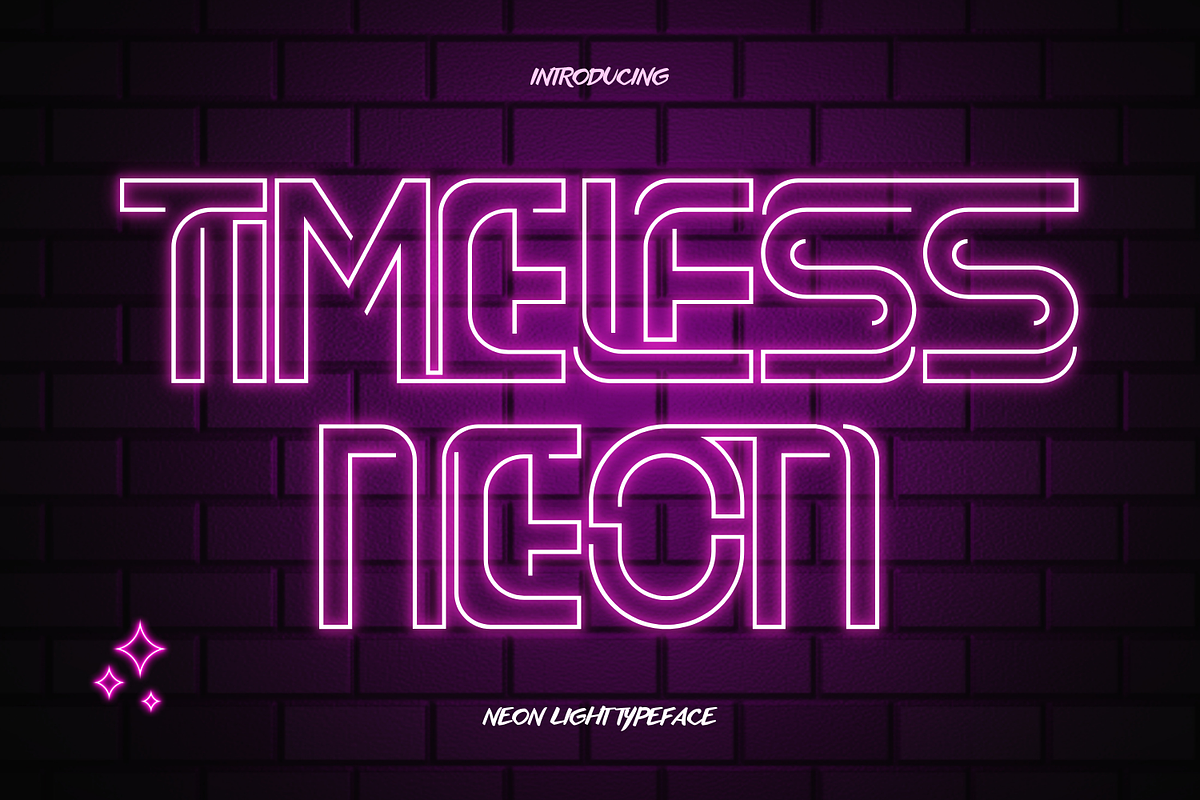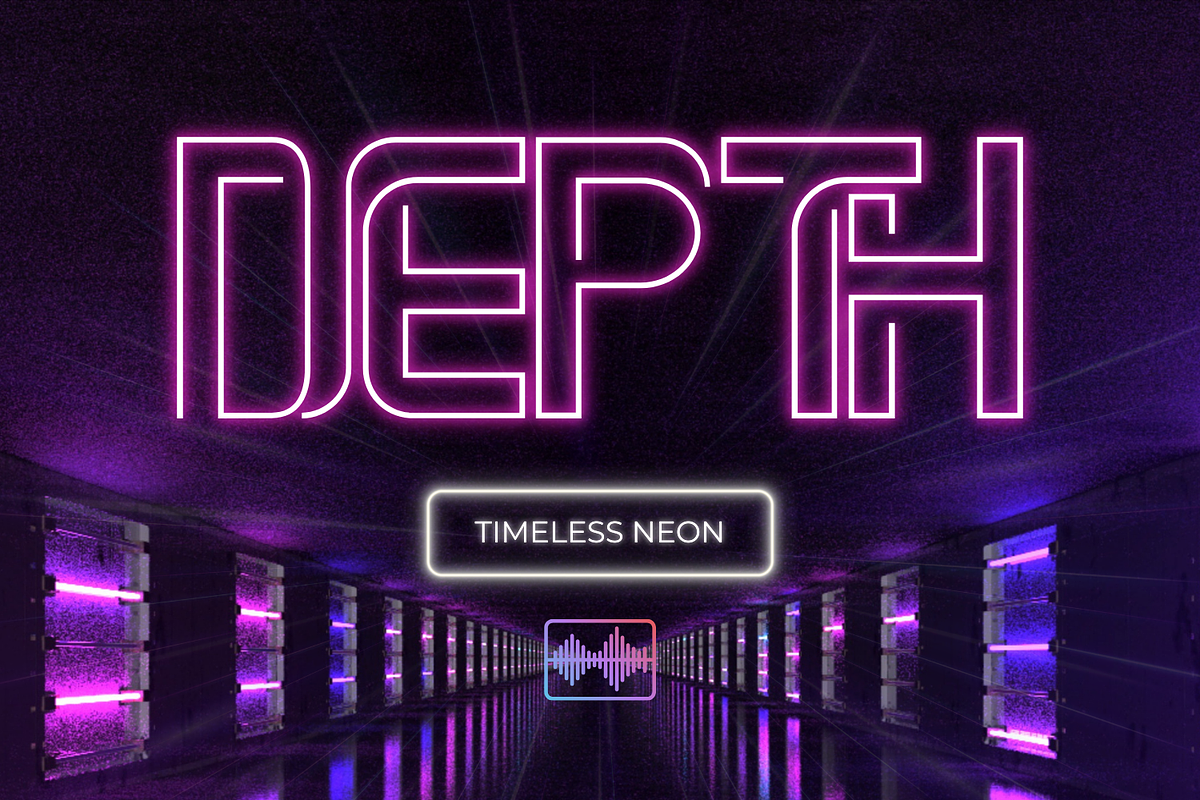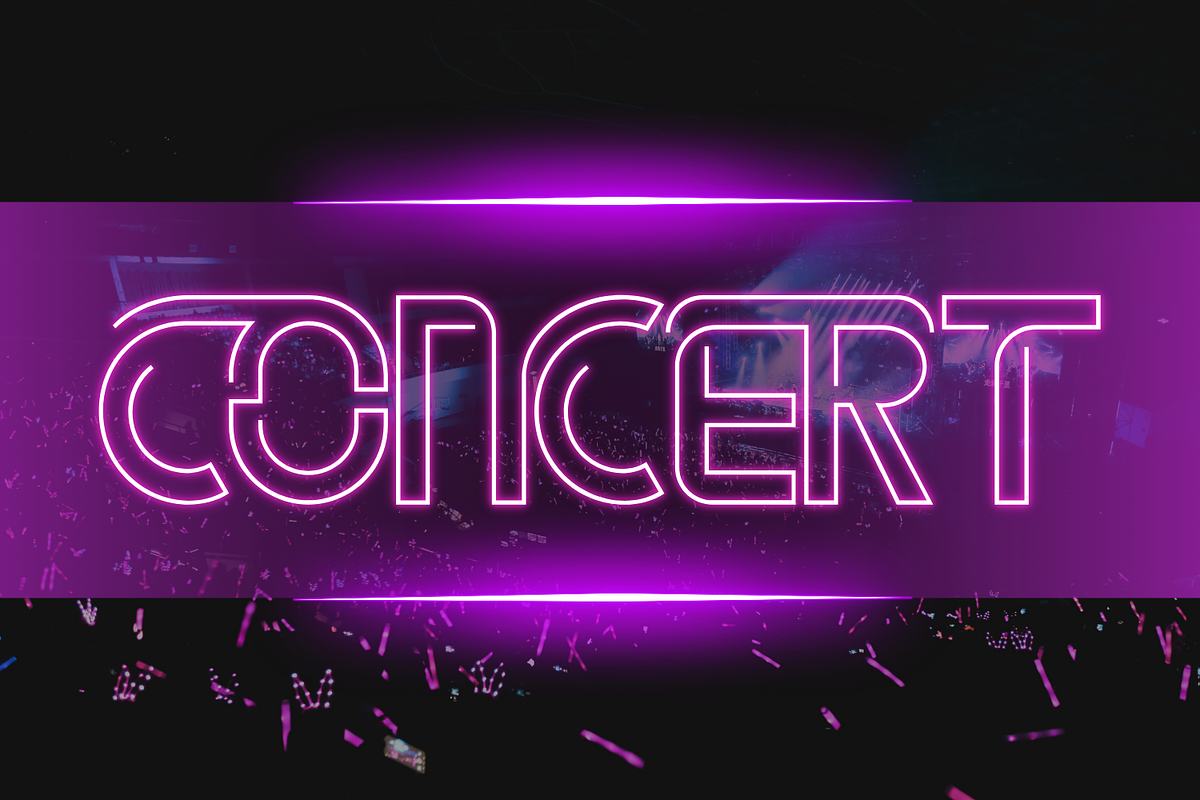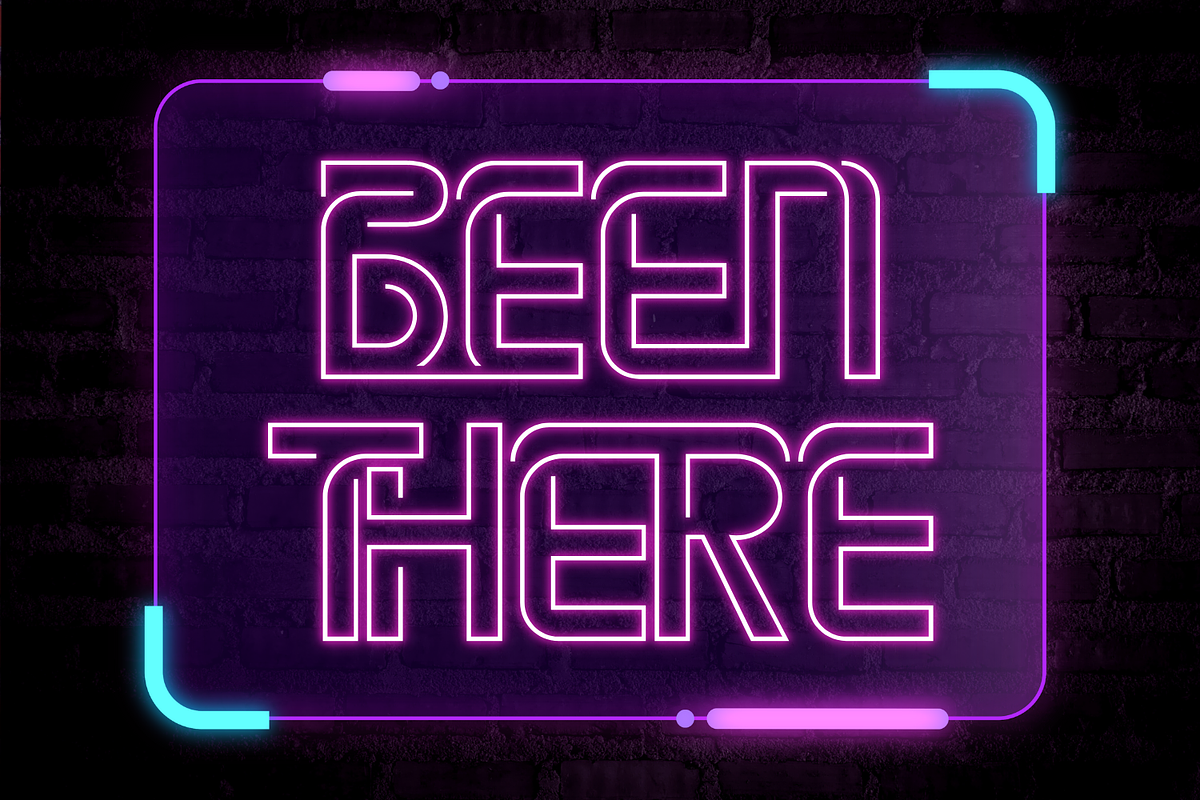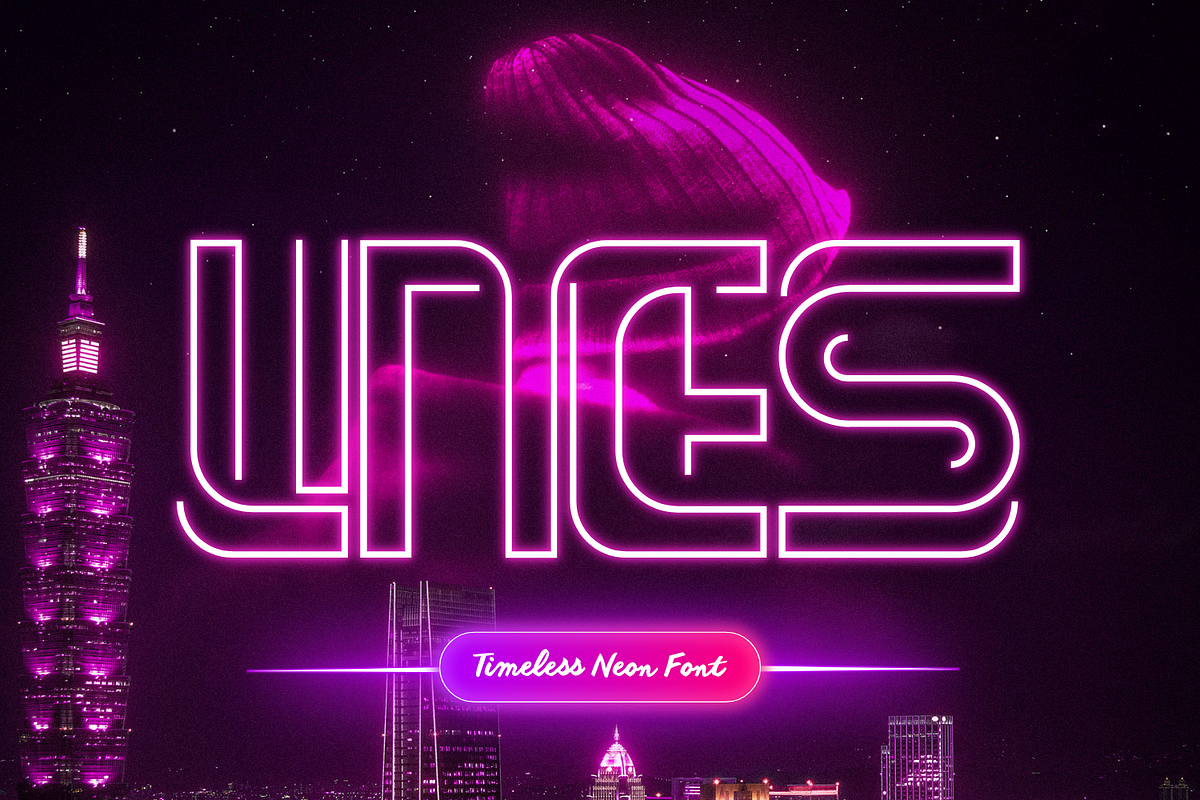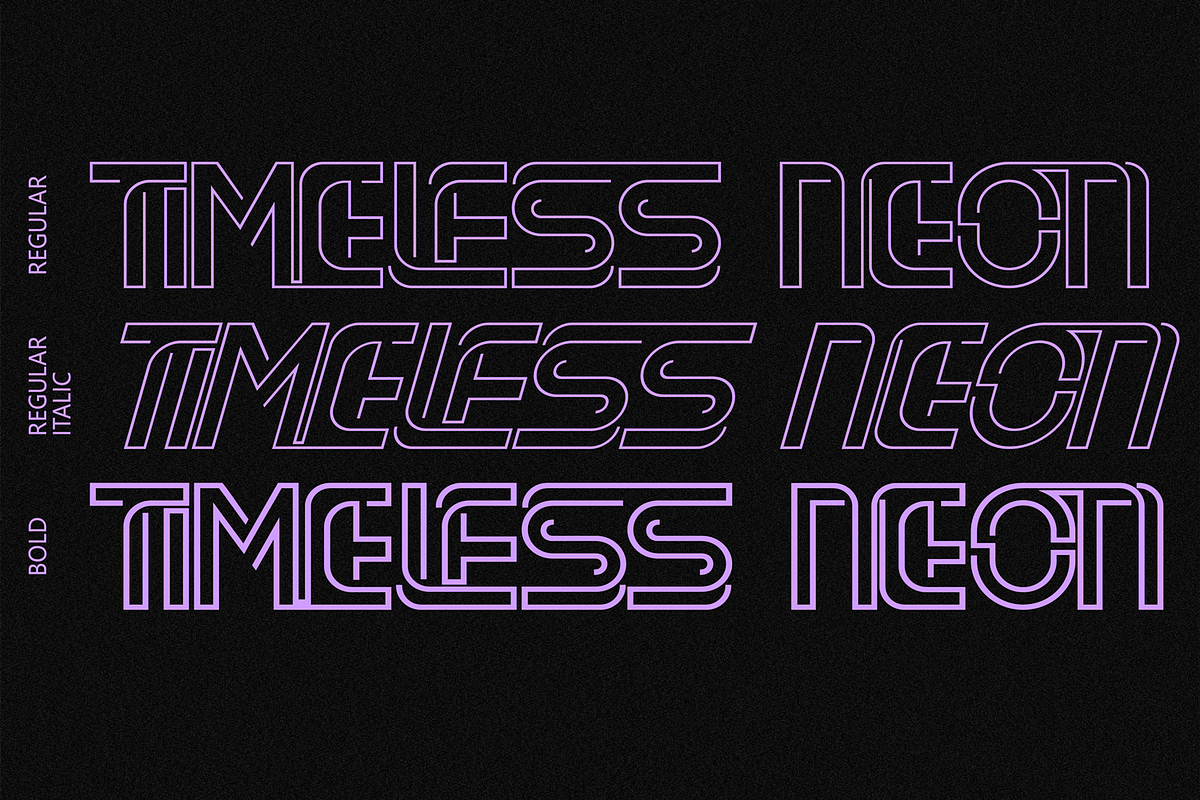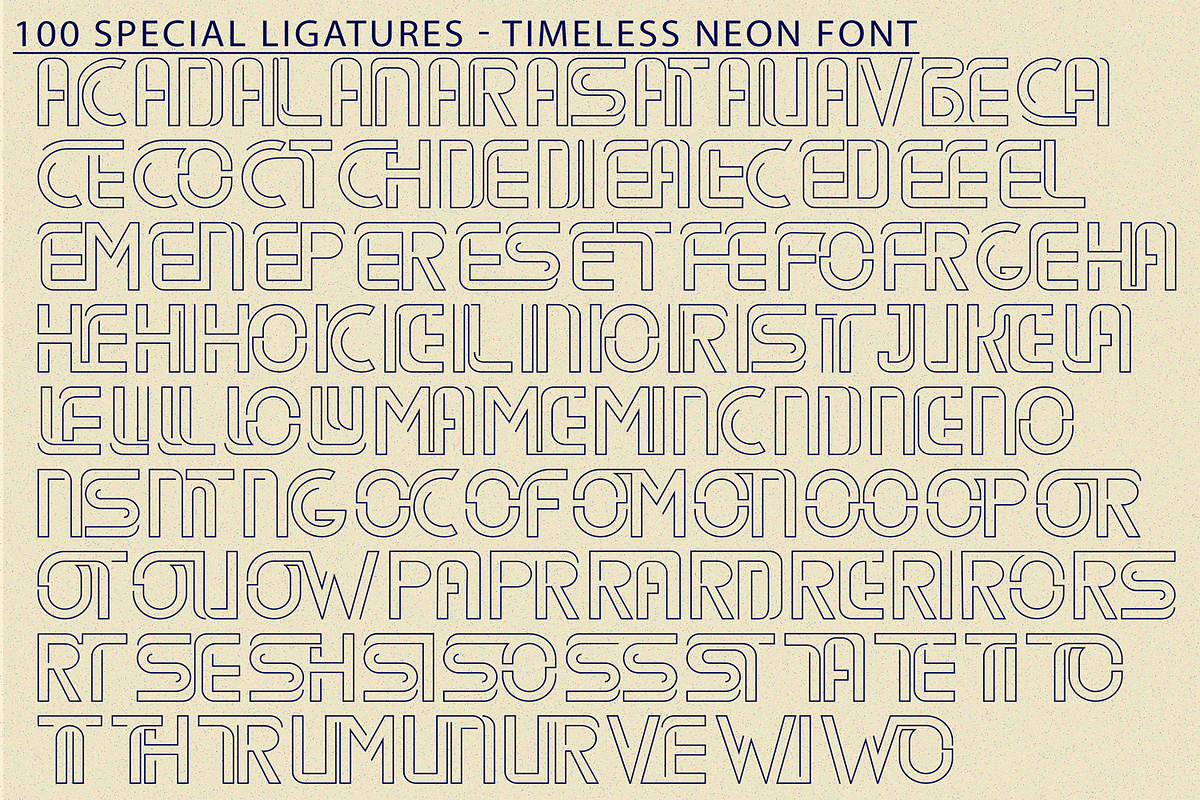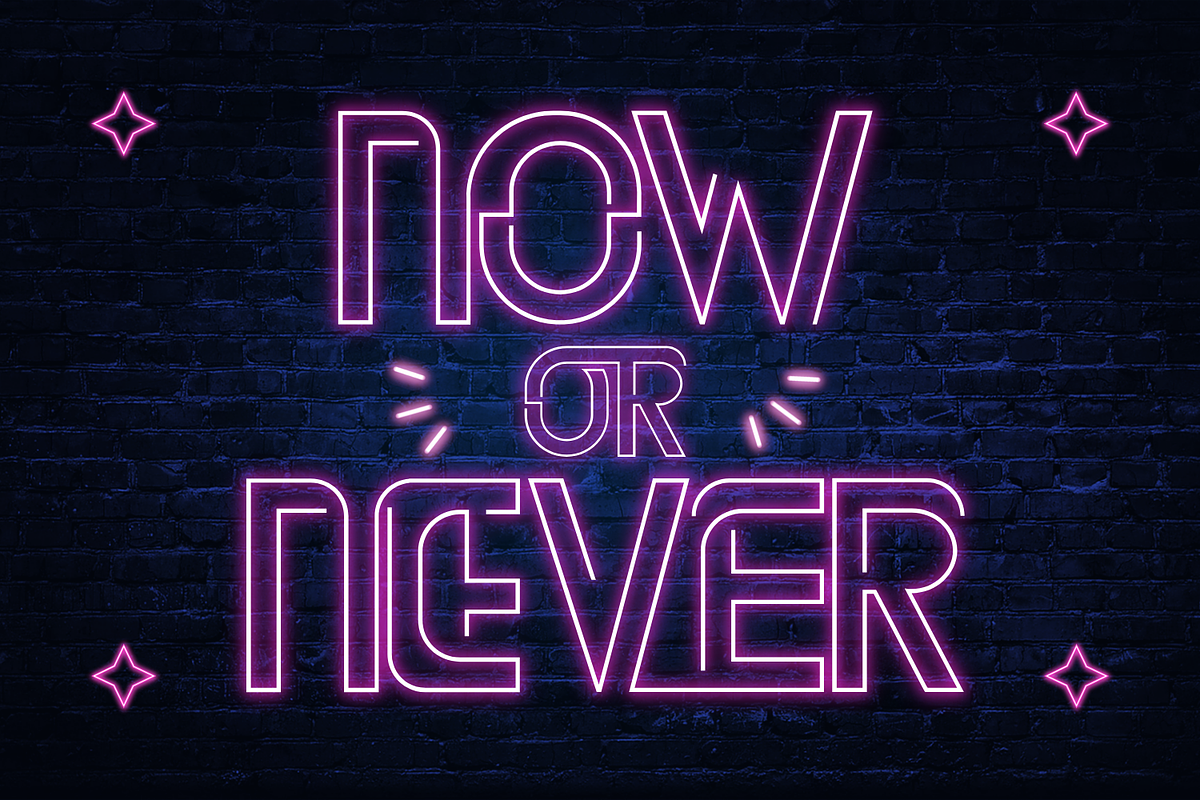
Timeless Neon Font
Timeless Neon Font – A Neon Retro Display Font, a bold neon-inspired display font designed to capture the glowing vibrance of retro signage. With clean geometric letterforms outlined in luminous strokes, this font evokes the electrifying energy of nightlife, concerts, and vintage cityscapes. Perfect for posters, music covers, club flyers, branding, game titles, or any project that needs a dazzling retro-futuristic vibe, Timeless Neon transforms your text into glowing statements.
- Uppercase Letters
- 100+ Unique Ligatures
- Accented Characters for Multilingual Support
About 100 ligatures combined with Stylistic Alternates Font:
AC AD AL AN AR AS AT AU AV BE CA CE CH CO CT DE DI EA EC ED EE EL EM EN EP ER ES ET FE FO FR GE HA HE HI HO IE IC IL IN IO IR IS IT JU KE LA LE LI LL LO LY MA ME MI NC ND NE NG NO NT NS OC OF OM ON OO OP OR OT OU OW PA PR RA RD RE RI RO RS RT SE SH SI SO SS ST TA TE TH TI TO TR TT UM UN UR VE WI WO